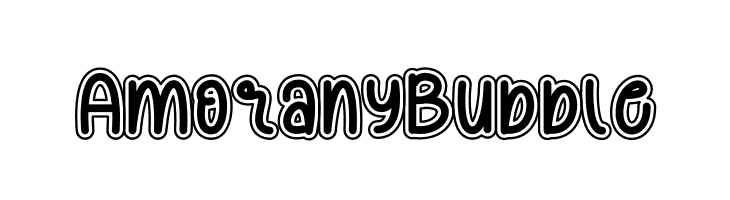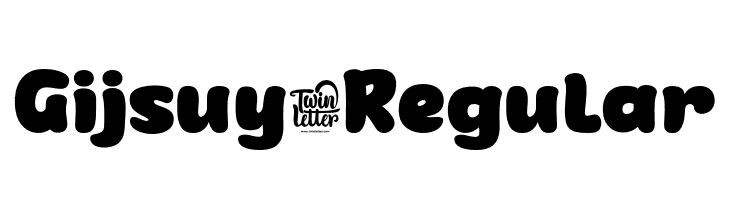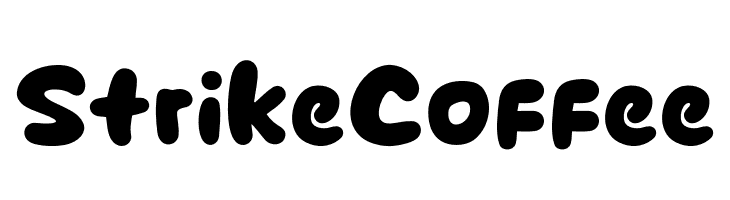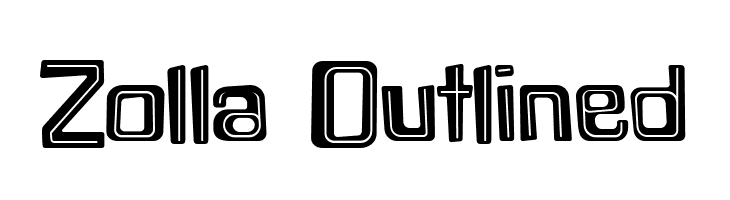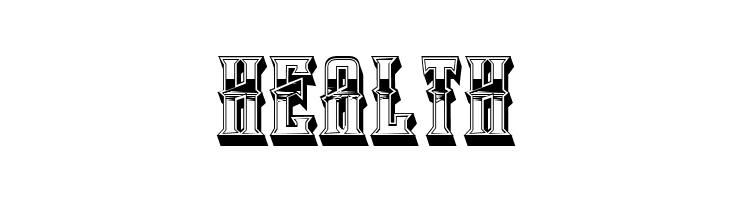
A playful, handwritten font with a whimsical and friendly style.
A flowing, cursive font with elegant, connected strokes and a handwritten appearance.
An elegant and flowing script font with graceful curves and a sophisticated style.
A modern, geometric font with bold, structured uppercase and cohesive lowercase letters.
An elegant script font with flowing, cursive letterforms and decorative swashes.
A playful and elegant script font with a handwritten style.
A cursive, handwritten font with elegant loops and flourishes.
A whimsical and elegant script font with flowing, interconnected letters and charming embellishments.
A bold, playful handwritten font with rounded strokes and a dynamic slant.
A playful, hand-drawn outline font with a whimsical and informal style.
A playful, casual handwritten font with rounded, consistent strokes.
A bold, brushstroke-style font with a dynamic, hand-painted appearance.
A bold, brush-style font with expressive, hand-painted strokes.
A bold, geometric font with a three-dimensional shadow effect.
A graceful script font with fluid, cursive strokes and a handwritten feel.
A modern, elegant font with tall, slender characters and artistic flair.
A playful, handwritten font with a lively and whimsical style.
A dynamic, brush-like font with fluid, organic strokes and a hand-drawn quality.
A playful and casual handwritten font with elongated, smooth letterforms.
A playful, hand-drawn font with bold, irregular strokes and a casual vibe.
A sophisticated cursive script with elegant, fluid lines.
A modern, clean sans-serif font with geometric shapes and uniform strokes.
A lively script font with fluid, connected strokes and a handwritten feel.
A bold, modern sans-serif font with clean lines and uniform strokes.
A whimsical, flowing handwritten font with elegant strokes.
A playful, handwritten font with a casual and dynamic style.
A playful handwritten font with dynamic strokes and whimsical characters.
A clean, modern sans-serif font with smooth, rounded edges and balanced spacing.
A playful, flowing script font with a handwritten charm.
A bold, playful handwritten font with thick strokes and a casual style.